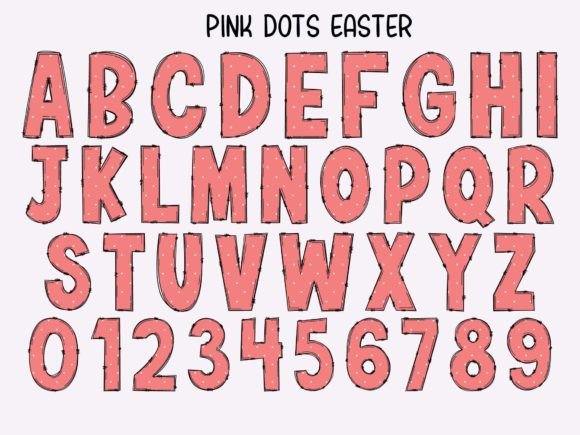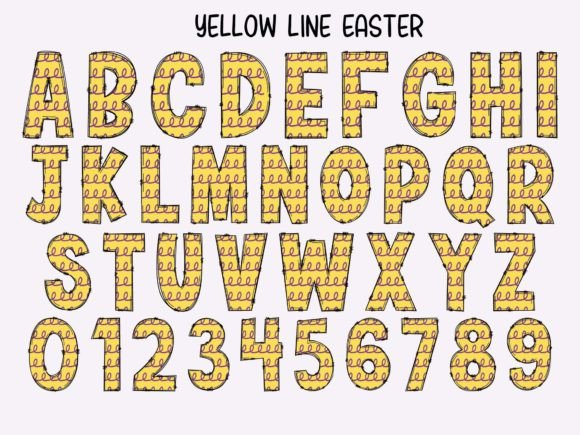
Easter Font
Easter font adds a burst of energy to your designs with its vibrant hues. Ideal for headlines, logos, and social media graphics, this font stands out and brings a fun touch. Choose from a range of bright colors to make a bold statement. Enhance your designs with this unique and playful color font.